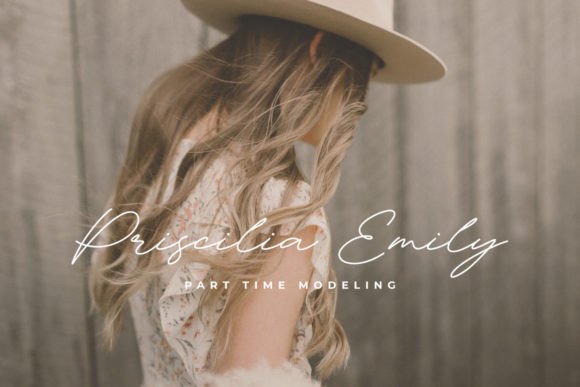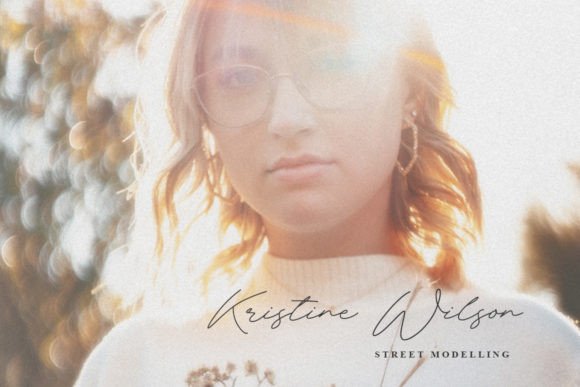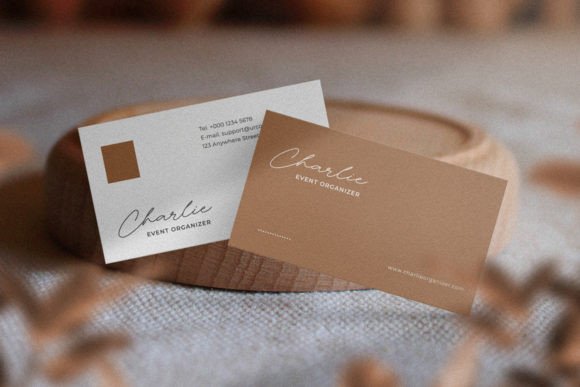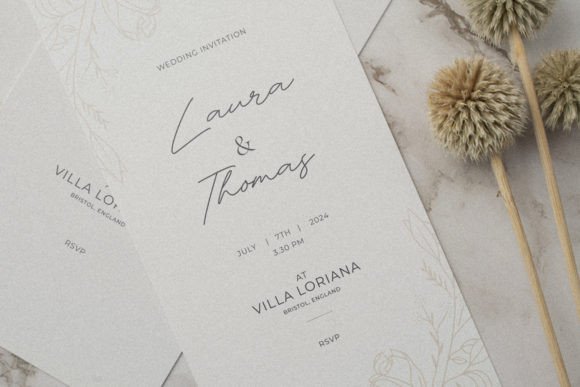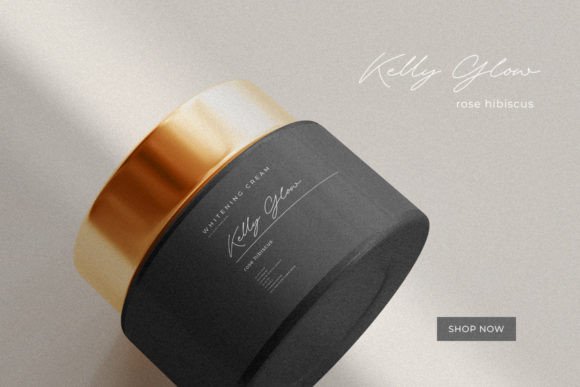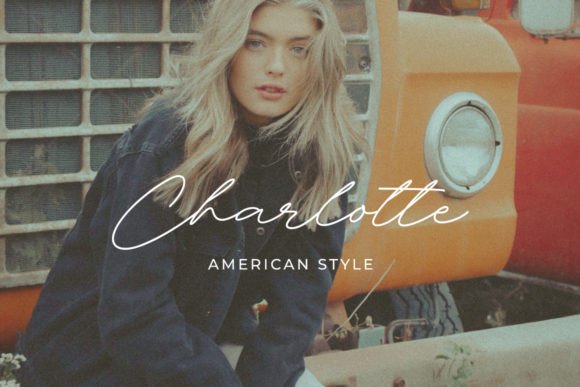
Discover the Timeless Charm of the Bulgary Rose Font
Do you remember the moment you fell in love with a font? For many designers, it’s that one ‘aha’ moment when a font perfectly captures the essence of their creative vision. For us, it’s the elegant touch of the Bulgary Rose Font that sets our hearts racing. This signature script font is more than just a design element – it’s a key to unlocking the perfect visual language for your next project.
Whether you’re crafting a romantic wedding invitation or a heartfelt thank you card, the Bulgary Rose Font is the perfect companion to bring your message to life. Its versatility makes it a valuable asset for designers, who can rely on its timeless charm to elevate their branding, social media, and marketing materials. With the Bulgary Rose Font, you’ll never go out of style.
- Unique Characteristics: Elegant, cursive script with floral elements and subtle texture, ideal for creative and romantic designs
- Font Style: Script, Casual, Elegant
Bulgary Rose Font Review
As a designer, I’ve had the chance to work with the Bulgary Rose Font, and I must say it’s a unique and eye-catching script font. ✨ The font’s elegant and flowing design makes it perfect for adding a touch of sophistication to any design project.
- ✨ Elegant and flowing design makes it perfect for adding a touch of sophistication to any design project.
- ✨ The font’s versatility allows it to be used for a wide range of applications, from branding and packaging to editorial and advertising.
However, there are a few limitations to consider: ⚠️ The font may be too ornate for some designs, and its complexity can make it difficult to read in certain contexts.
- ⚠️ May be too ornate for some designs, which can detract from the overall message.
- ⚠️ Can be difficult to read in certain contexts, such as small text or fast-paced designs.
Overall, I think the Bulgary Rose Font is a great addition to any designer’s toolkit. While it may have some limitations, its unique design and versatility make it a great choice for designers looking to add a touch of elegance to their work.
Use Bulgary Rose Font to add a touch of elegance and sophistication to your designs.
Pair it with a simple background to let the font be the focus.
Bulgary Rose Font is perfect for:
Brand logos and typography.
Editorial and publishing design.